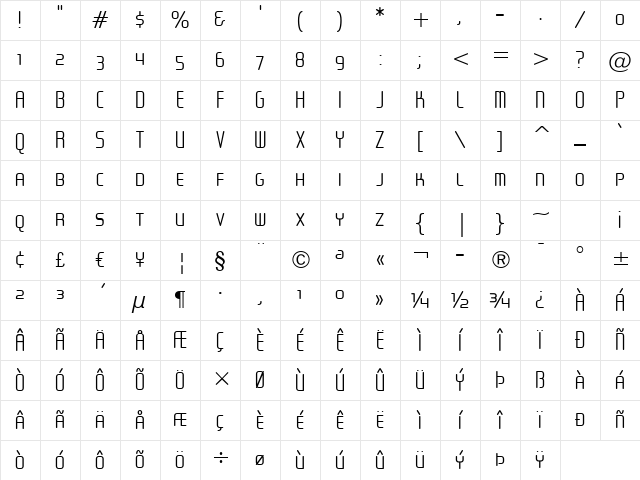
Complete Sugarskin BTN Small Cap Regular glyph index. Displaying only characters natively supported by Sugarskin BTN Small Cap Regular font.
Sugarskin BTN Small Cap is a composed and adaptable typeface that performs quietly and consistently across a wide range of design contexts.